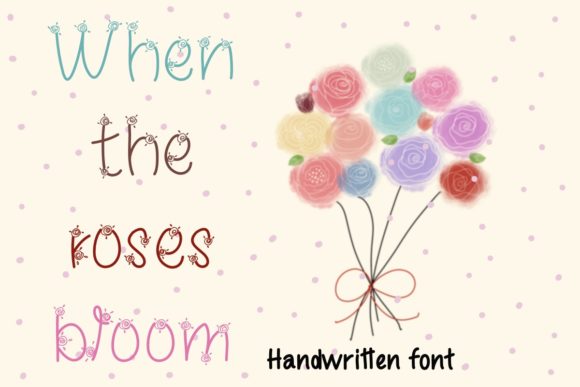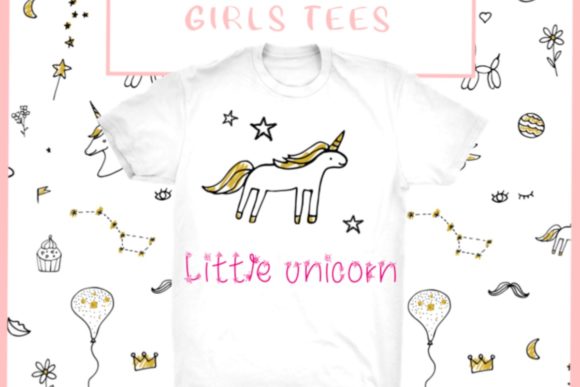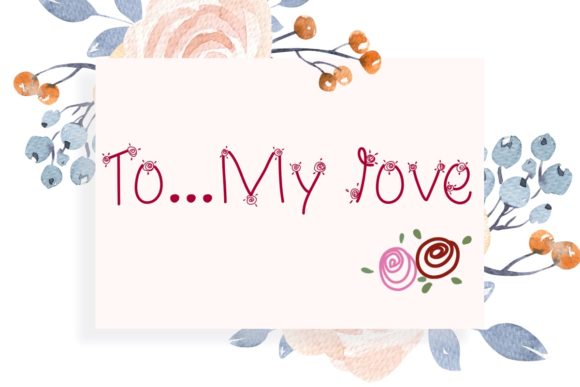
About When the Roses Bloom Font
When the Roses Bloom is a sweet and dainty handwritten font, featuring tiny little ornaments on each character. No matter the topic, this font will be an incredibly asset to your fonts’ library, as it has the potential to elevate any creation.